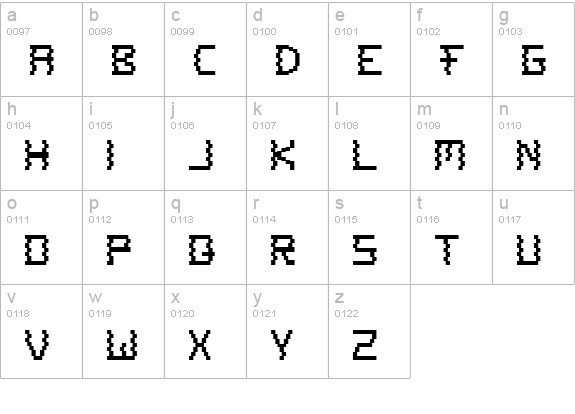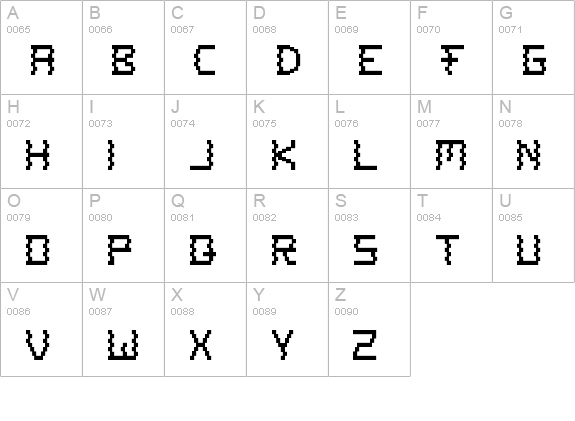
A to Z Font Details
Introducing the A to Z font, a versatile and captivating typeface that is sure to elevate your designs to new heights. With its sleek and modern aesthetic, this font is perfect for a wide range of projects, from branding and advertising to web design and social media graphics. But what truly sets the A to Z font apart is its incredible versatility. With a full set of uppercase and lowercase letters, numbers, and punctuation marks, you'll have everything you need to create stunning typography that truly stands out. Whether you're designing a logo for a new business, crafting eye-catching headlines, or simply adding a touch of elegance to your personal projects, this font will exceed your expectations every time. And the best part? The A to Z font is absolutely free! That's right, this amazing typeface can be freely downloaded at FontsMarket.com. Say goodbye to spending a fortune on premium fonts – now you can enjoy high-quality typography without breaking the bank. Downloading the A to Z font is quick and easy. Simply head over to FontsMarket.com and find the A to Z font in their extensive collection. With just a few clicks, you'll have access to this incredible typeface that will take your designs from ordinary to extraordinary. So why wait? Unlock your creativity and start using the A to Z font today. Whether you're a professional graphic designer or a hobbyist looking to add some flair to your creations, this font is the perfect tool to make your projects shine. Don't miss out on this amazing opportunity – download the A to Z font for free at FontsMarket.com and take your designs to the next level.